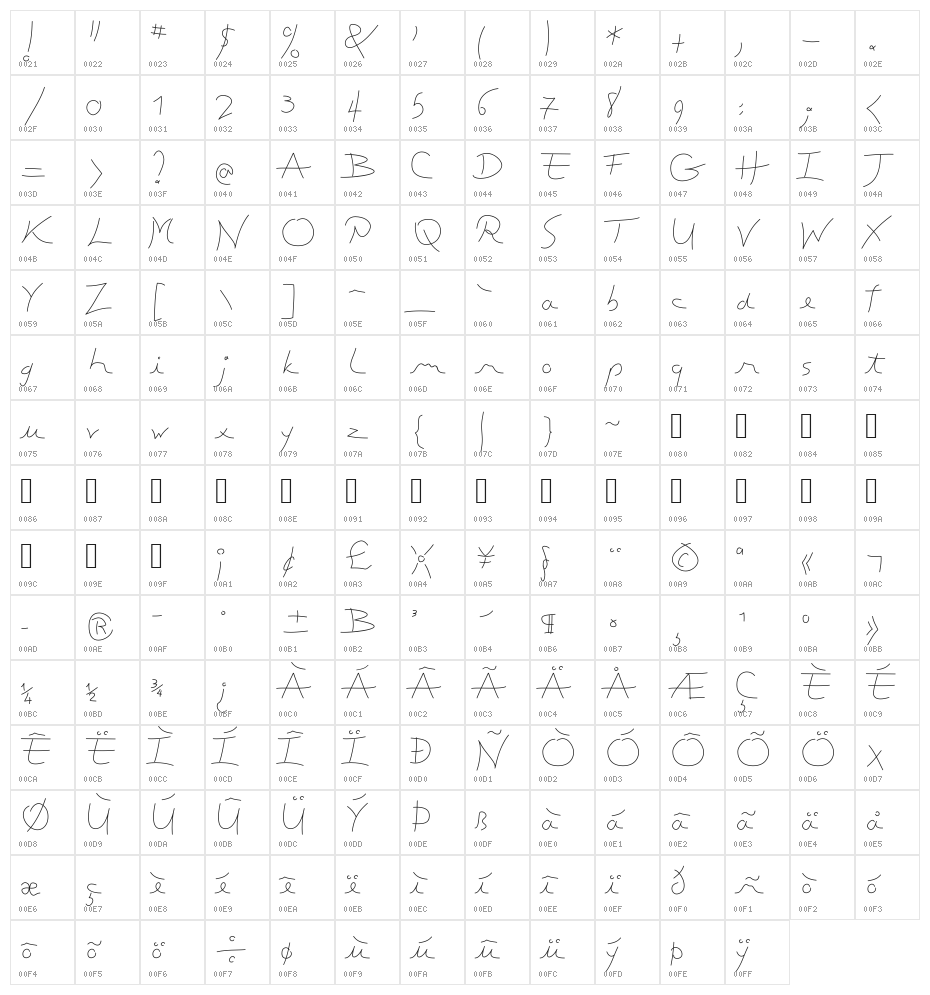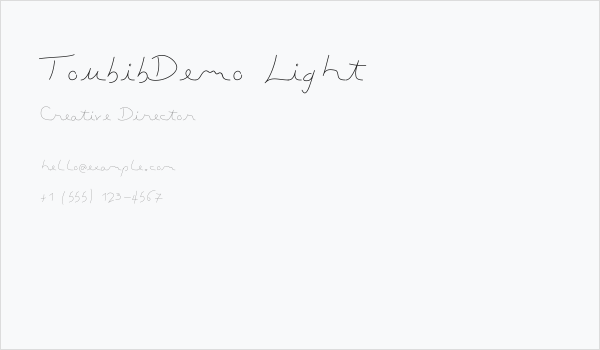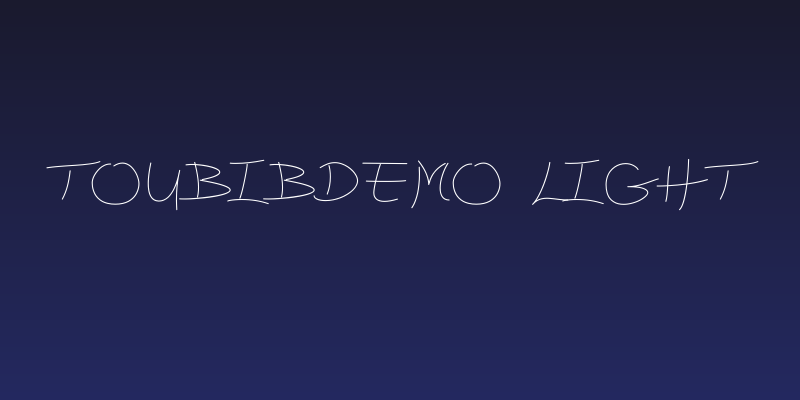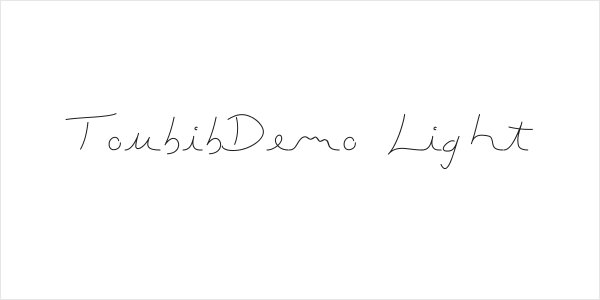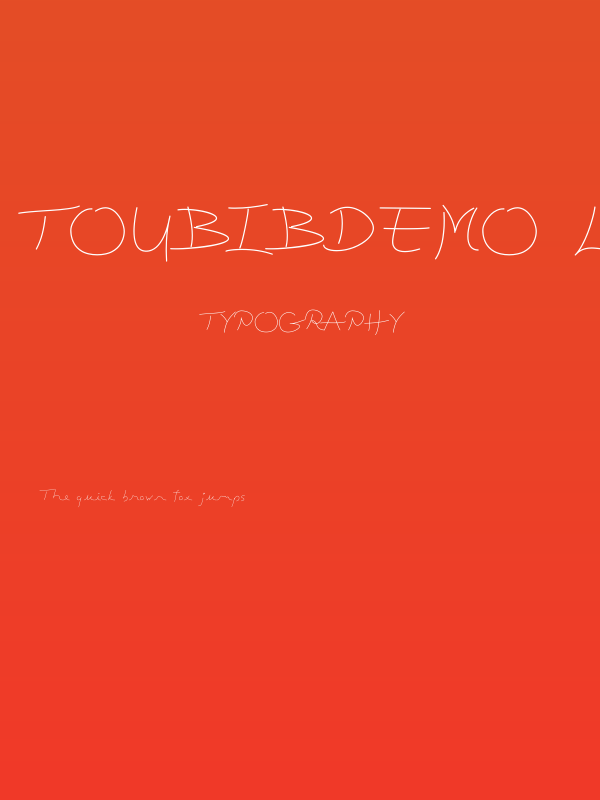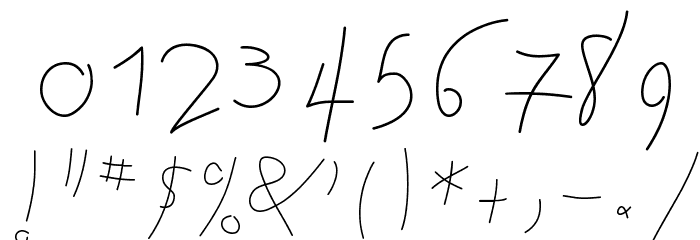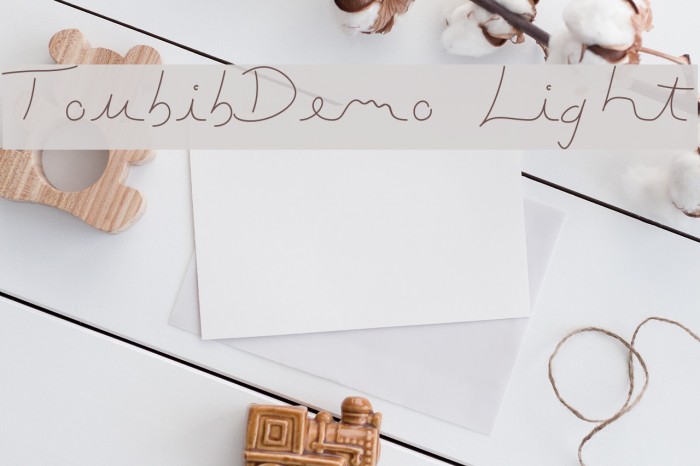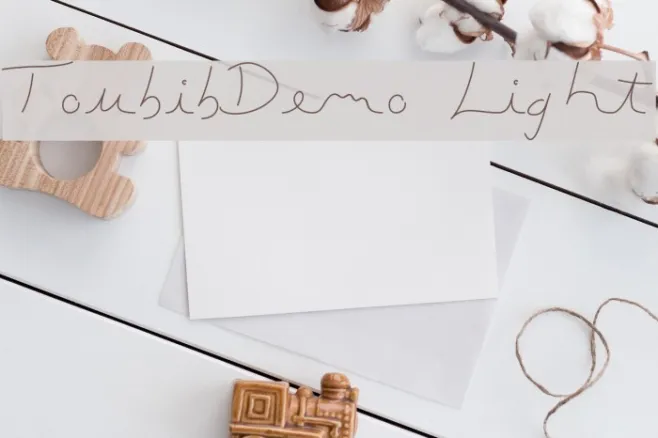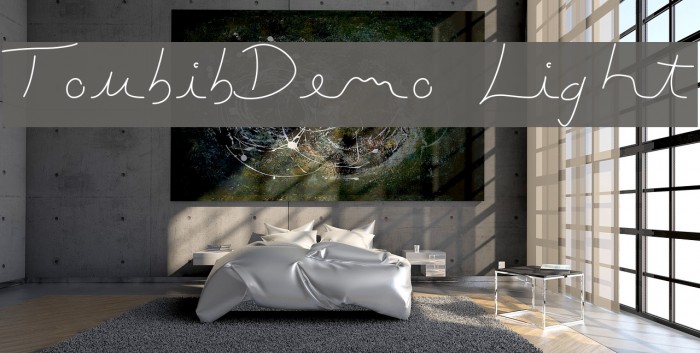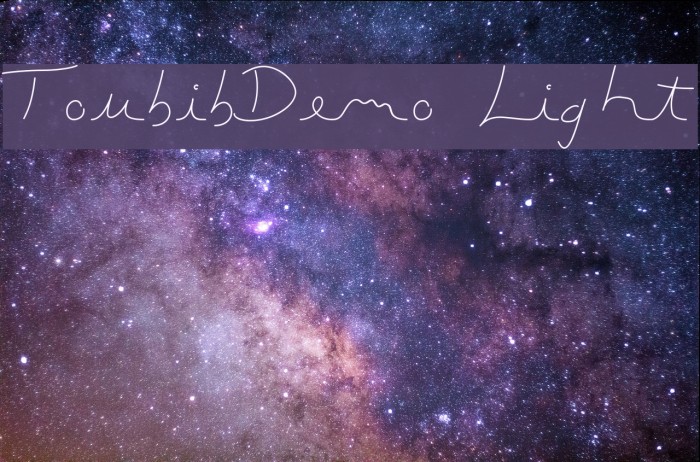
ToubibDemo Light Font
ToubibDemo Light Description
This font features a light and airy handwritten style, characterized by its thin, flowing strokes and casual elegance. The uppercase letters maintain a consistent height with a slight slant, giving them a dynamic appearance. Lowercase letters are similarly slender, with a playful and informal touch. The numerals are distinct and maintain the same lightness, ensuring readability. Special characters are integrated seamlessly, maintaining the overall aesthetic. This font exudes a sense of spontaneity and creativity, making it suitable for projects that require a personal and approachable feel.
| Overall Style | Casual, Artistic |
| Use Case | Invitations, Greeting cards, Creative branding |
| Proposed Projects | Ideal for personal invitations, creative branding, casual greeting cards, and artistic projects. |